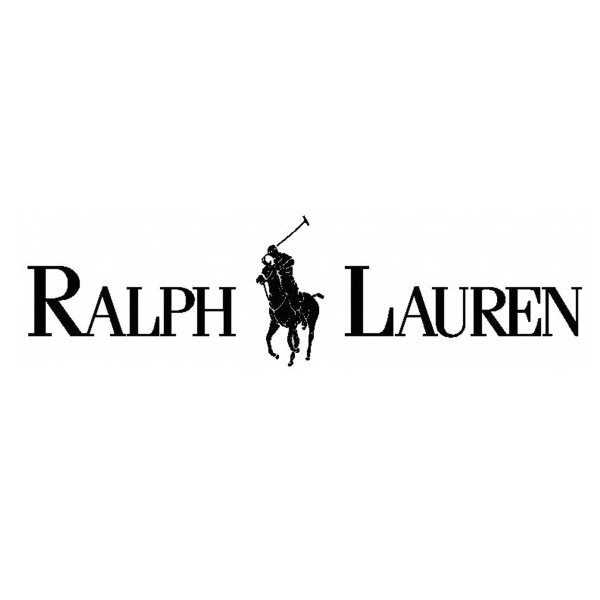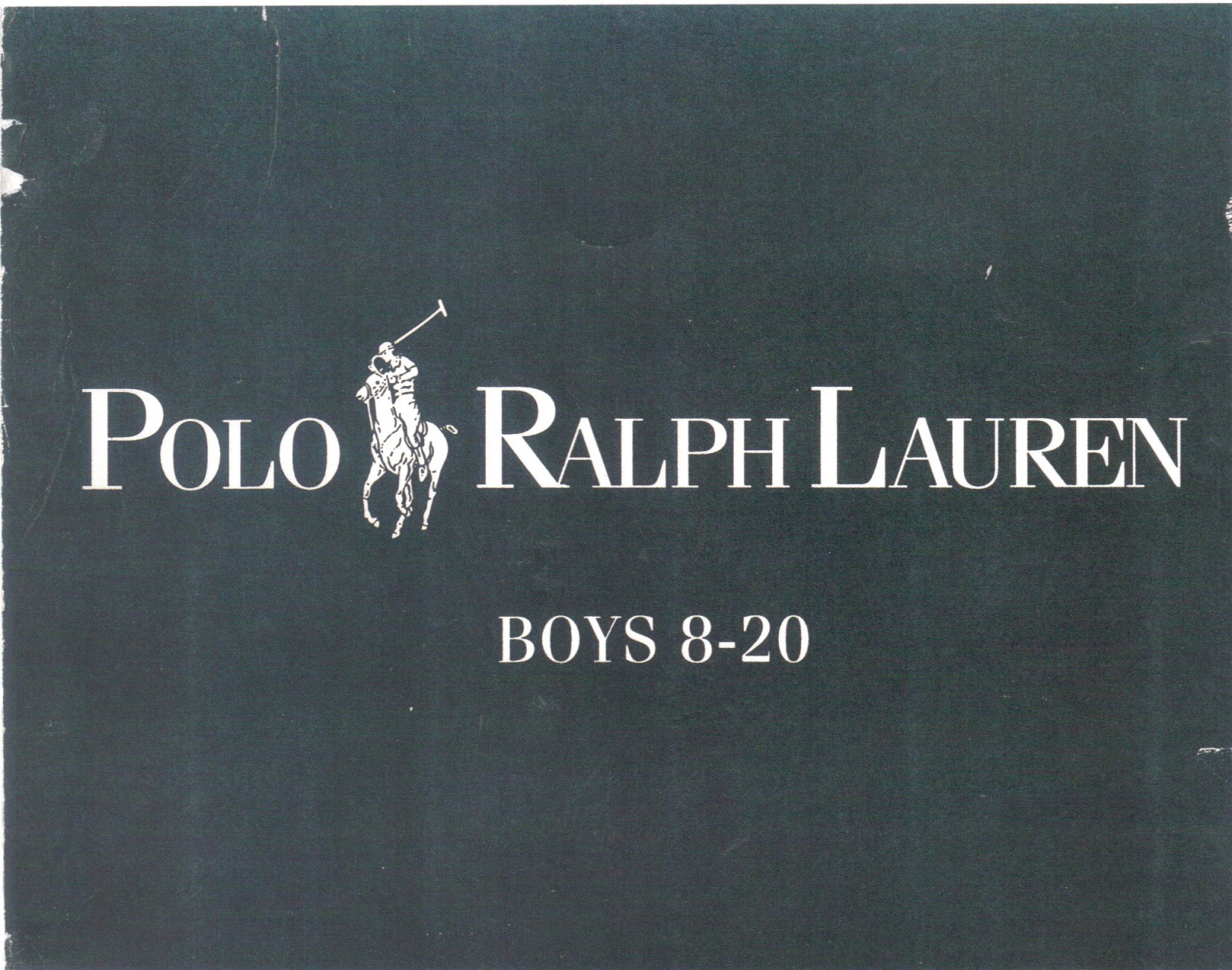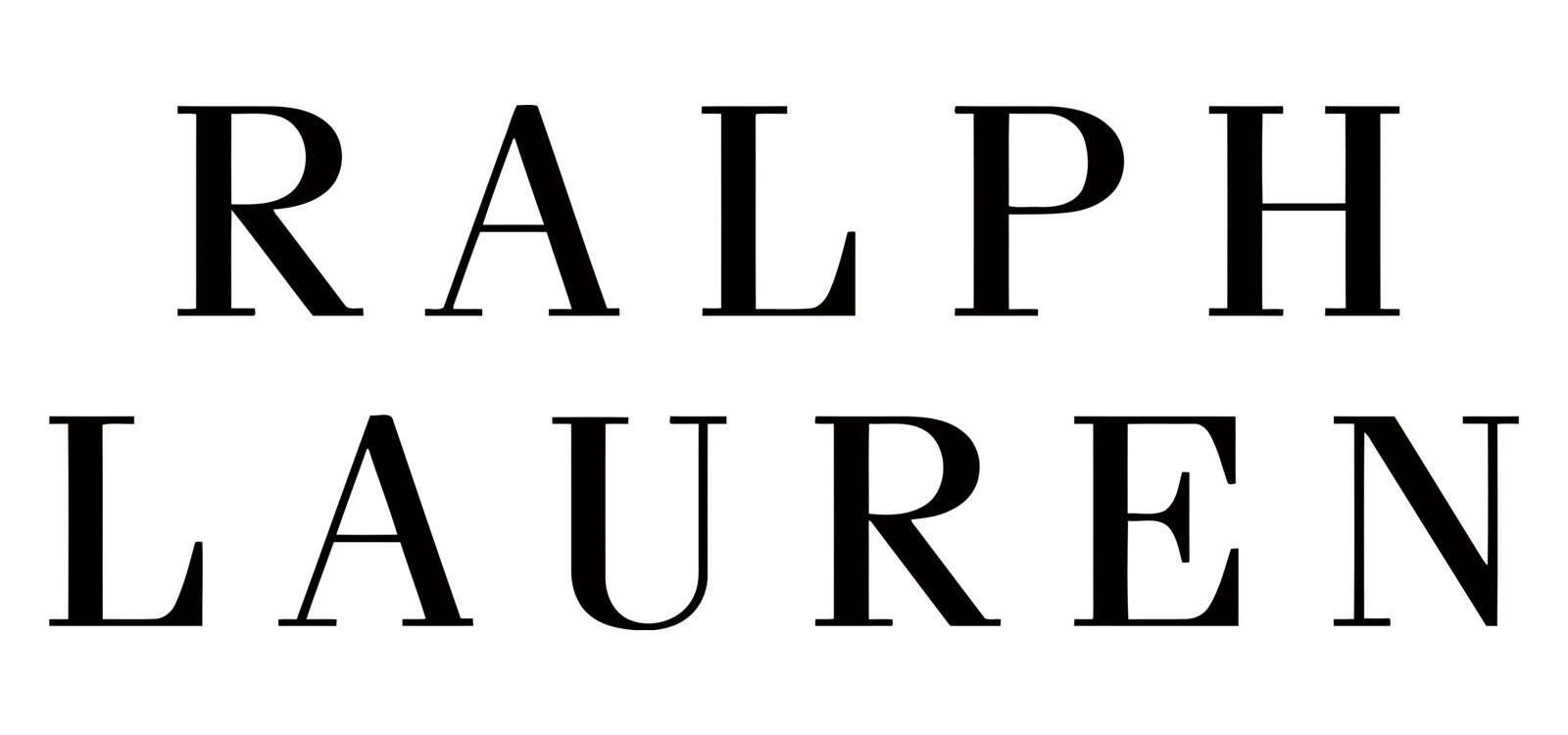
Ralph is best known for investing in an idealistic style and a logo that simultaneously reflects the originality of a British man and the aesthetics of the American aristocracy. What is the font of RALPH LAUREN.
Polo ralph lauren logo font. The closest font you can get for the Hersheys logo is Press Gothic Tags. The font used for Ralph Lauren logo is very similar to ITC Fenice Regular which is a neoclassical serif font published by ITC. For the clothing brand see Polo Ralph Lauren.